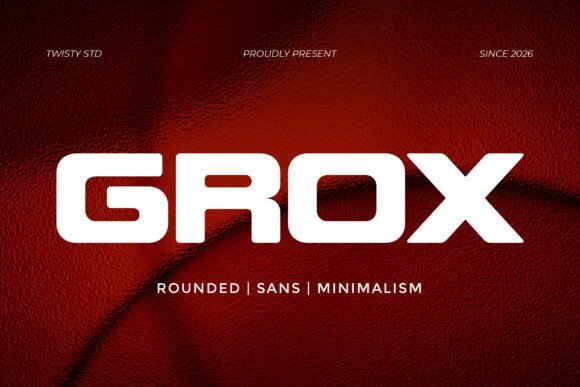
Unleash the Power of Typography
As a designer, have you ever found yourself staring at a blank canvas, trying to find the perfect font to bring your vision to life? You’ve tried bold, you’ve tried italic, but nothing seems to capture the essence of your brand. That’s when you stumble upon a game-changer – a font that’s both strong and approachable, bold and clean. Welcome to the world of Grox Font, a rounded sans font designed to make a statement without overwhelming the senses.
With its unique blend of thick strokes and smooth curves, Grox Font is the perfect tool for designers who want to convey confidence and authority without sacrificing a touch of modernity. Its versatility makes it a valuable addition to any design arsenal, from logos to brochures, and from websites to social media graphics. Whether you’re a seasoned pro or just starting out, Grox Font is sure to inspire your next creative project.
Grox Font Key Features
- Unique Characteristics: Grox Font features a distinctive blend of geometric and organic elements, resulting in a unique and eye-catching aesthetic that sets it apart from more traditional fonts.
- Kerning and Ligatures: Grox Font includes advanced kerning and ligature features, ensuring that characters are carefully spaced and paired to create a polished and professional appearance.
Grox Font Review
Grox Font is a unique and modern font that can add a touch of sophistication to any design project. I was impressed by its clean lines and geometric shapes, which make it perfect for minimalist designs. ✨ The font’s versatility is one of its strongest points, as it can be used for a wide range of applications, from logos and branding to web design and print materials.
Customizability: Grox Font offers a range of customization options, allowing designers to adjust the font’s weight, size, and color to suit their specific needs.
Legibility: The font is highly legible, making it perfect for large-scale text and body copy.
Style: Grox Font’s modern and geometric style makes it perfect for designs that require a touch of elegance and sophistication.
However, I did encounter a few limitations during my review. ⚠️ The font’s lack of consistency in certain weights and styles can make it difficult to use for complex designs. Additionally, the font’s limited character set may require designers to use additional fonts or workarounds to accommodate all their needs.
Overall, I would recommend Grox Font to designers who are looking for a modern and versatile font that can add a touch of sophistication to their designs. While it may have some limitations, its strengths make it a valuable addition to any design toolkit.
Grox Font Practical Application Guide
The Grox font is a unique, futuristic sans-serif font that can add a touch of edginess to your designs. To use it, follow these steps:
To get the most out of the Grox font, try the following:
- Use the Grox font in combination with other fonts to create a visually appealing contrast.
- Play with different font styles, such as bold and italic, to add emphasis to your text.
Grox Font is a futuristic sans-serif font, but it may not be suitable for all designs. Here are a few alternatives that can be used in different scenarios.
Q: What is the recommended font size and line height for optimal readability in Grox Font?
For optimal readability, we recommend using a font size between 12px and 18px for body text, with a line height of at least 1.2 to 1.5 times the font size. For headings, use a larger font size (24px to 48px) with a line height of at least 1.5 to 2 times the font size. Adjust these values according to your design needs and the specific use case.